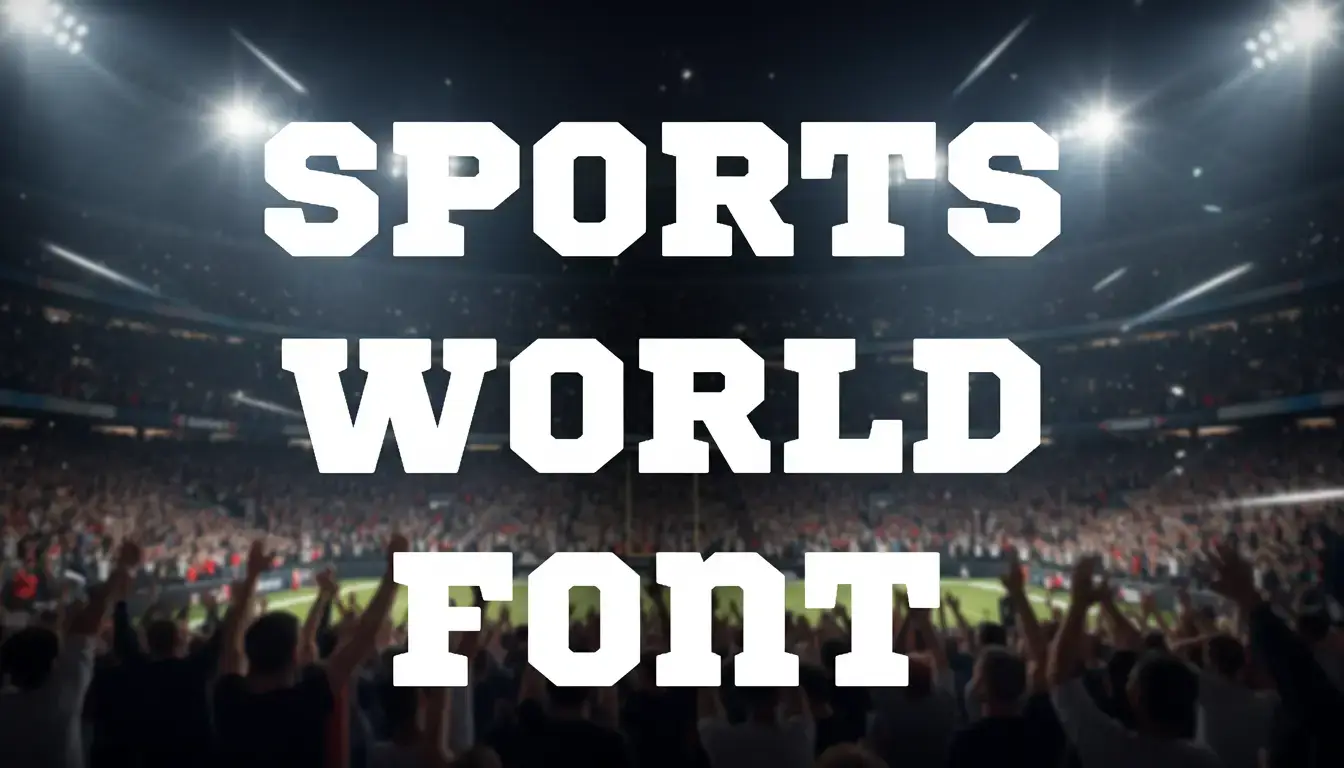
Sports World Font
Sergiy S. Tkachenko engineered Sports World, a bold, high-impact varsity display typeface published through 4th February Studio in 2012. Built to replicate the classic blocky aesthetic of American athletic gear, Tkachenko crafted solid, thick letterforms that instantly convey strength, energy, and structural stability across sports apparel and branding layouts.
What You Can Type With Sports World
With complete upper and lowercase letters and all ten digits, Sports World is ready for real wording, not just a single headline. Common punctuation such as &, !, ? and @ is included as well. It also has the accented letters you need for Spanish, French, German, Portuguese and Italian. On top of that, it includes Cyrillic characters.
Where Sports World Works Best
Think of Sports World for posters, logos and eye-catching headlines. Use it for one standout word or headline and let simpler fonts handle the rest.
Does Sports World support accented letters?
Yes. Sports World includes the accented letters needed for Spanish, French, German, Portuguese and Italian, so it works for more than just English.